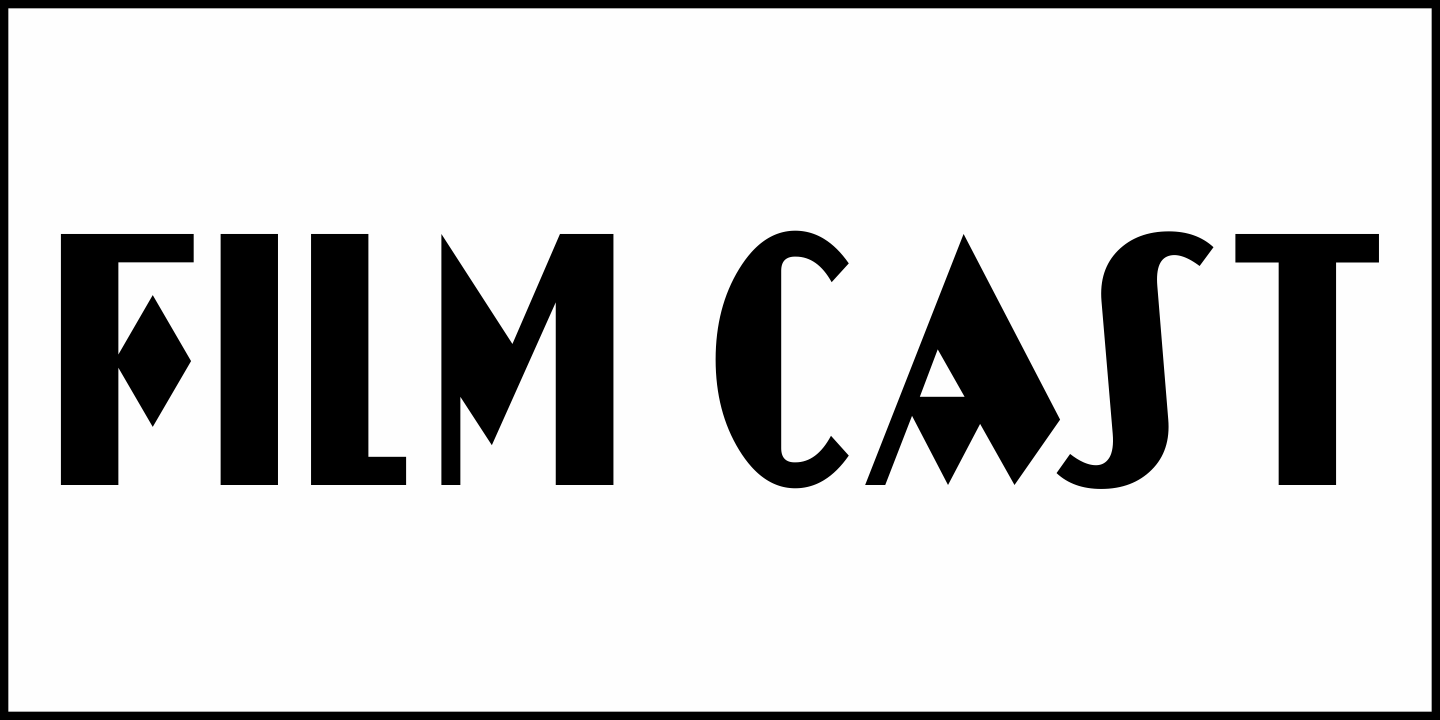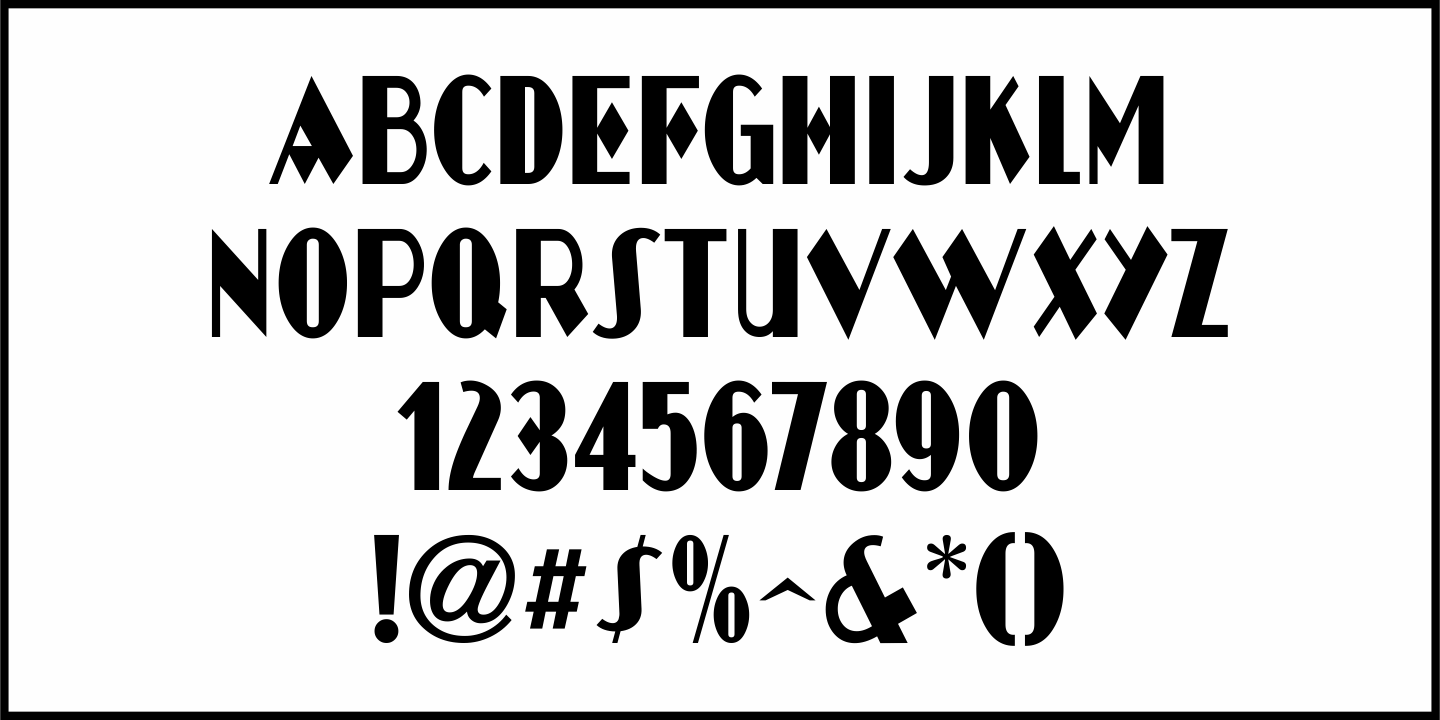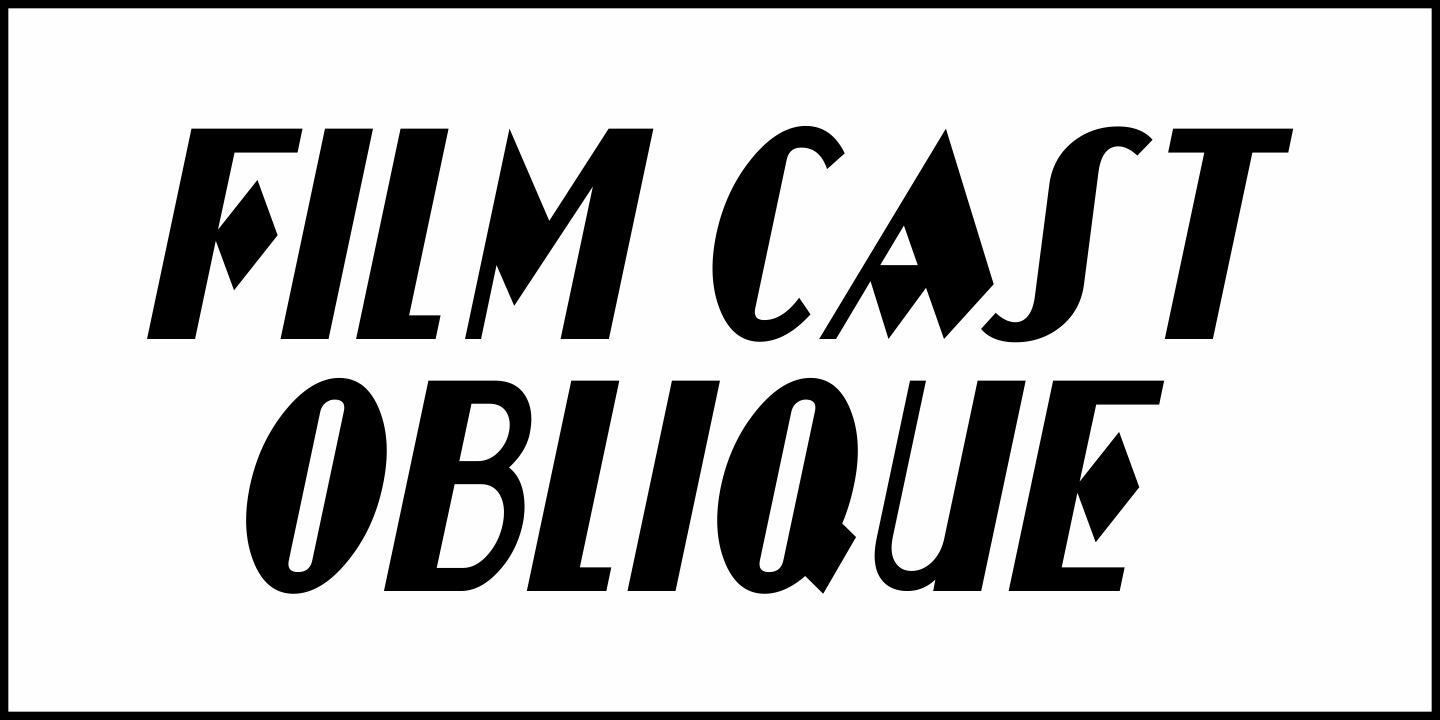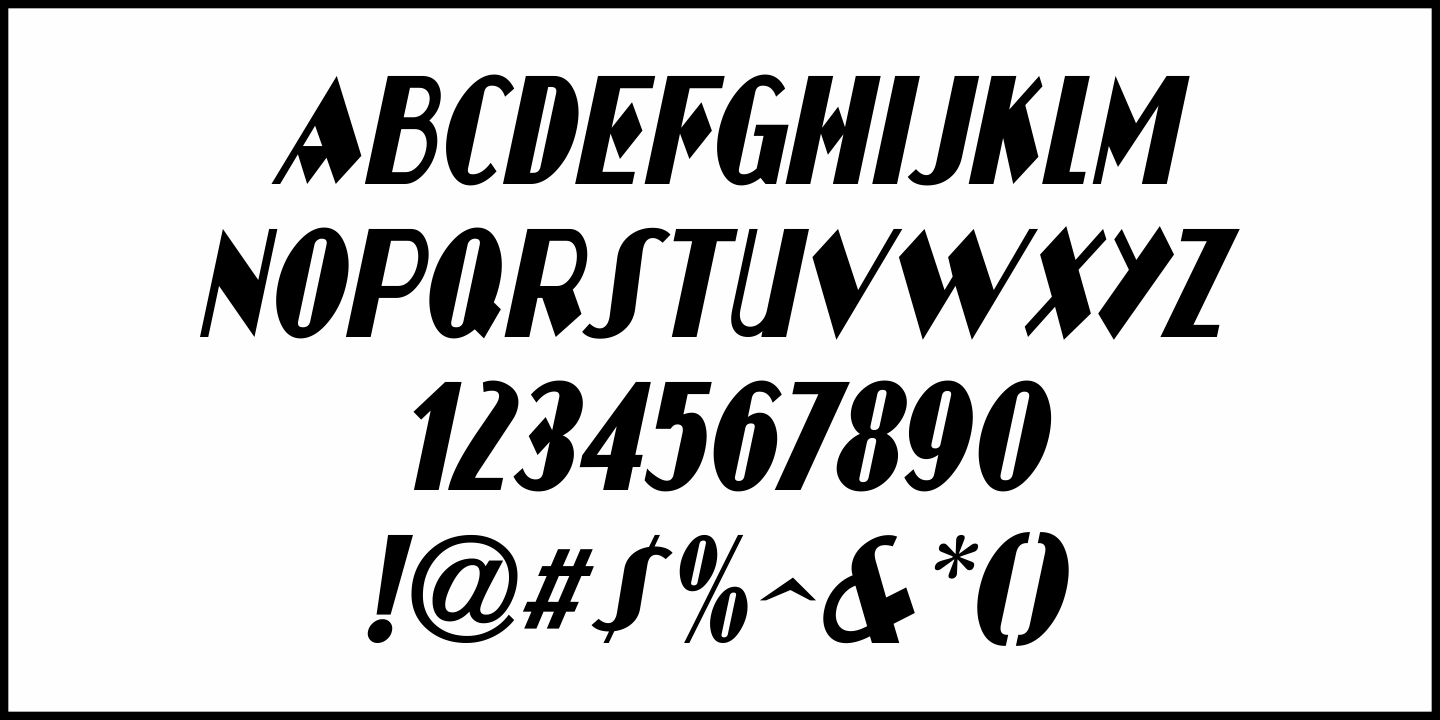
Film Cast
While the hand lettered main title on a poster for the 1928 silent film "Easy Virtue" inspired one type design (Hollywood Days JNL), the names of the cast members done in a different style inspired another.
This bold, condensed sans serif design with early Art Deco influences is also hand lettered.
Now know as Film Cast JNL, it's available in both regular and oblique versions.